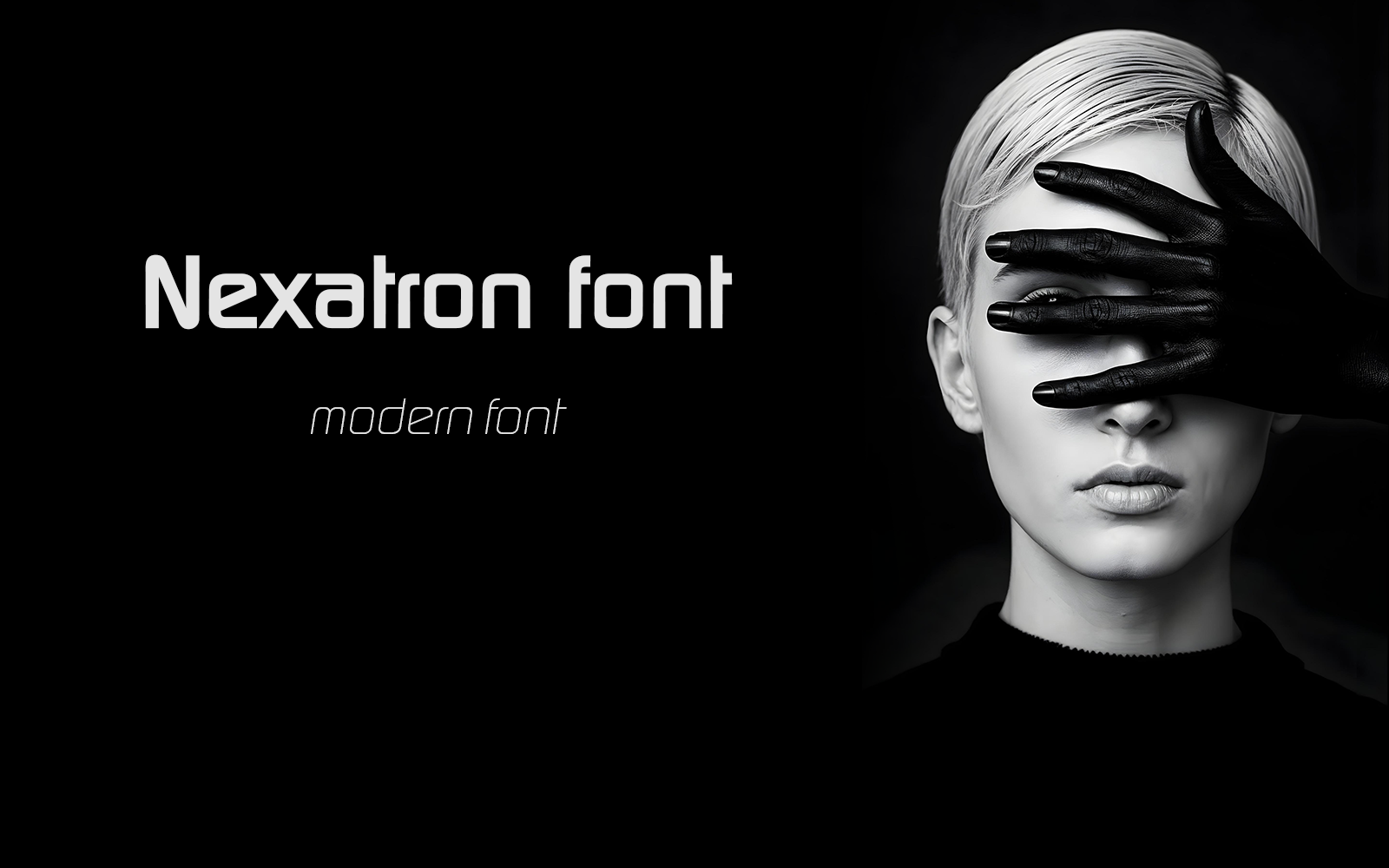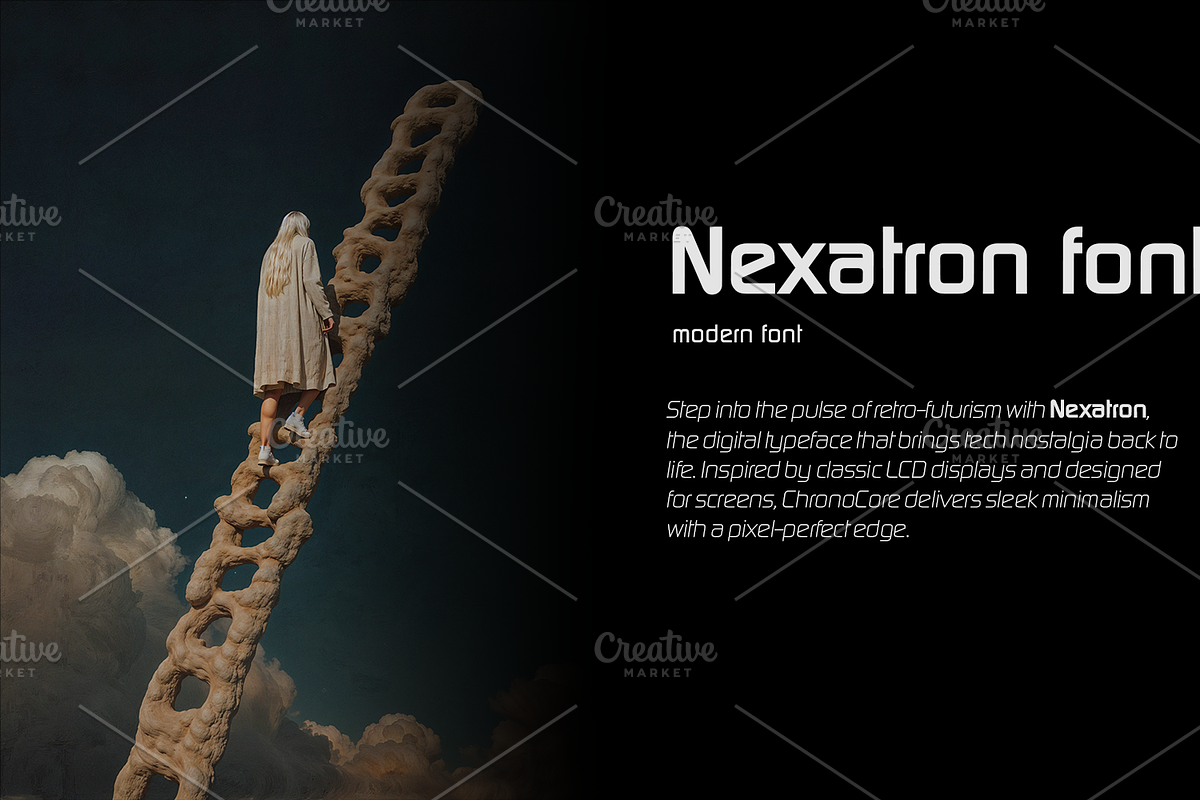
⏱️ Introducing Nexatron — Digitally Engineered. Timelessly Cool.
Step into the pulse of retro-futurism with Nexatron, the digital typeface that brings tech nostalgia back to life. Inspired by classic LCD displays and designed for screens, ChronoCore delivers sleek minimalism with a pixel-perfect edge.
🔢 Ideal for clocks, dashboards, HUDs & UIs 💾 A favorite for tech, sci-fi, and arcade branding 📟 Authentically digital with modern clarity Whether you’re building a control panel, designing a cyberpunk world, or branding your next synthwave project — Nexatron is the code that makes your visuals tick.
🧠 Nexatron — Because the future started in 1984.